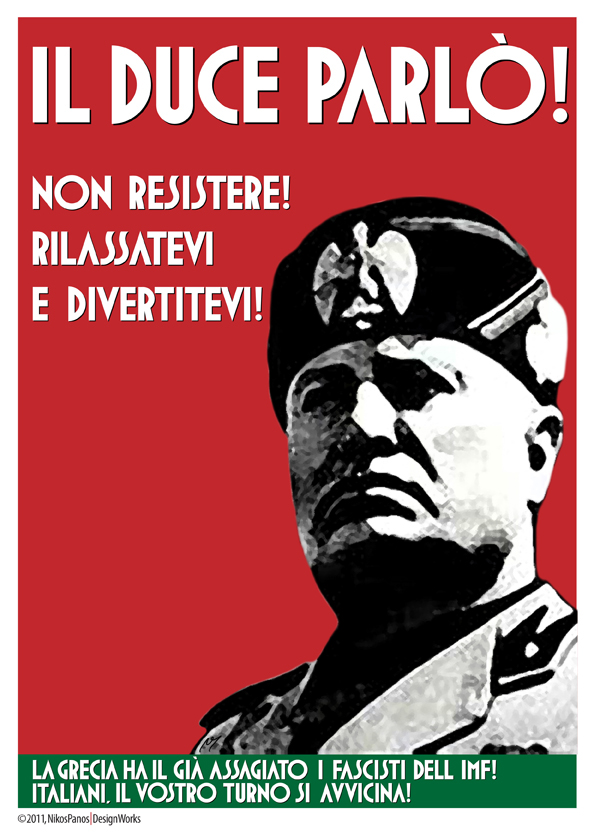
Custom made typeface
This a political satire mock-poster.
To imitate the design aesthetic of the original propaganda posters of the era of Mussolini, I've designed a font with Adobe Illustrator to be utilized in this mock-poster.
I've named this font Pugno which translates fist.
The text roughly translates:
DUCE HAS SPOKEN!
DO NOT RESIST, RELAX & ENJOY
GREECE, ALREADY HAD A TASTE OF THE IMF FASCISTS!
ITALIANS, YOUR TURN WILL COME SOON!